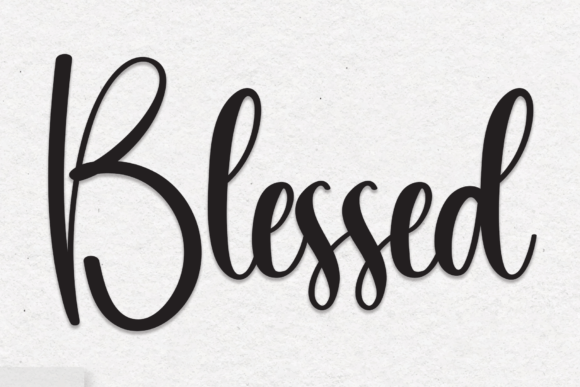
Blessed Font: Elevate Your Designs with Elegant Handwriting
In the world of design, typography plays a crucial role in conveying the tone and personality of a project. For crafters, designers, and artists, finding the perfect font can be a daunting task. However, with the Blessed Font, you can add a touch of elegance and sophistication to your creations. This font’s latest style letters are perfect for a wide range of applications, from wall displays to wedding invitations, social media post logos, advertisements, product packaging, and more.
What Makes Blessed Font Special?
The Blessed Font boasts a unique and stylish handwriting design that is sure to capture the attention of your audience. Its elegant letters are carefully crafted to convey a sense of luxury, refinement, and creativity. Whether you’re working on a personal project or a commercial one, this font is versatile enough to adapt to any design style or theme.
One of the best things about the Blessed Font is its incredible versatility. Here are some design ideas where this font can shine:
- Wall Displays: Create stunning wall art, quotes, or posters that showcase your creativity and style.
- Wedding Invitations: Make your wedding invitations truly special with elegant and sophisticated typography.
- Social Media Post Logos: Elevate your social media presence with eye-catching logos and graphics.
- Advertisements: Grab the attention of your target audience with bold and stylish typography.
- Product Packaging: Add a touch of luxury to your product packaging and make it stand out on store shelves.
- Product Designs: Create beautiful product designs, such as labels, stickers, or decals, that showcase your brand’s personality.
- Photography: Use the Blessed Font to create stunning watermarks or overlays for your photos.
- Invitations: Design beautiful invitations for parties, events, or special occasions.
- Stationery: Create elegant stationery, such as letterheads, notebooks, or journals, that reflect your personal style.
Why Choose Blessed Font?
With so many fonts available, why choose Blessed Font? Here are just a few reasons:
- Unique Design: The Blessed Font boasts a unique and stylish design that will set your projects apart from the rest.
- Elegant and Sophisticated: This font exudes elegance and sophistication, making it perfect for high-end designs.
- Versatile: The Blessed Font can be used for a wide range of projects, from personal to commercial.
- Easy to Read: Despite its elegant design, the Blessed Font is easy to read, making it perfect for body text or captions.
Tips for Using Blessed Font
To get the most out of the Blessed Font, here are some tips:
- Experiment with Colors: Try pairing the Blessed Font with different colors to create unique and eye-catching designs.
- Mix and Match: Combine the Blessed Font with other fonts to create interesting and dynamic typography.
- Pay Attention to Spacing: Make sure to adjust the spacing between letters and words to create a clean and elegant design.
In conclusion, the Blessed Font is a versatile and elegant font that can elevate your designs to the next level. With its unique design, sophisticated style, and endless possibilities, this font is perfect for designers, crafters, and artists looking to add a touch of luxury to their projects. Whether you’re working on a personal or commercial project, the Blessed Font is sure to impress.